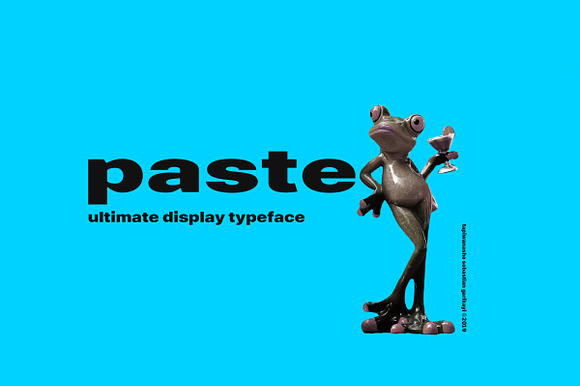
Paste Display Typeface
Paste Display Typeface by sebgarry is a font selected for branding, posters, packaging, typography.
Why Paste Display Typeface is worth a look
Paste Display Typeface by sebgarry fits naturally into Branding, posters, packaging, typography.